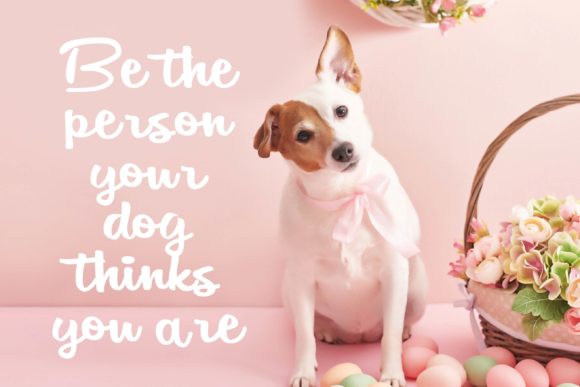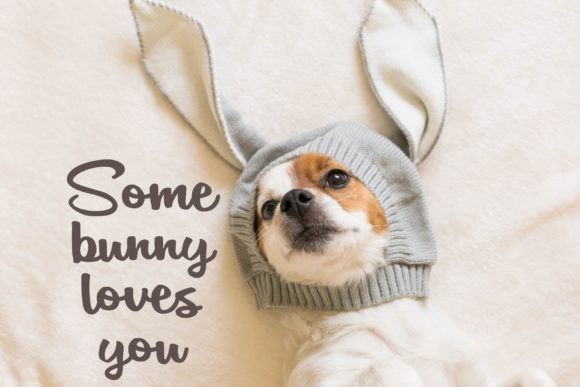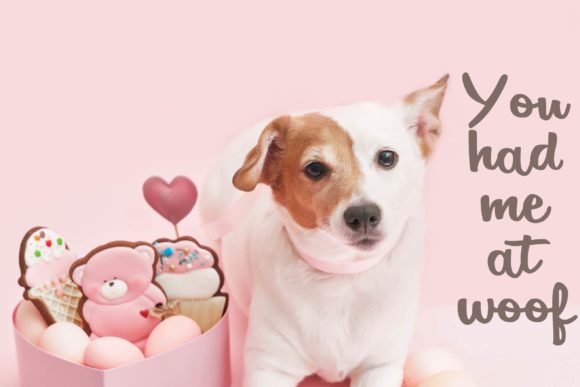
Introduction to Jackrabbit Font
As a designer, you know the thrill of creating something from scratch – the blank canvas, the spark of an idea, and the rush of bringing it to life. And sometimes, all it takes is the right font to give your project that extra oomph. That’s where the Jackrabbit Font comes in – a hand-crafted typeface that’s as fresh as a spring morning and as friendly as a smile.
As a valuable addition to any designer’s toolkit, the Jackrabbit Font is a high-quality resource that’s sure to elevate your work to the next level. So why settle for a generic font when you can add a dash of whimsy and personality to your designs with the Jackrabbit Font?
Key Features of Jackrabbit Font
- High-quality, professional font suitable for various creative projects, including logos, branding, and digital designs.
- Designed with a unique, modern aesthetic, making it an excellent addition to any design resource collection.
Honest Review: Jackrabbit Font
As a designer, I’m always on the lookout for high-quality design resources to elevate my creative projects. Recently, I had the chance to work with the Jackrabbit Font, and I’m excited to share my honest review.
One of the standout features of the Jackrabbit Font is its high-quality design. The font is incredibly crisp and clear, making it perfect for a variety of applications, from logos to digital products. ✨
However, I did notice a few limitations. The font family is relatively small, and it doesn’t come with as many variations as some other fonts. ⚠️
Overall, I’m really impressed with the Jackrabbit Font. It’s a solid design resource that’s perfect for designers working on creative projects. If you’re looking for a high-quality font with a transparent background, I’d definitely recommend giving it a try.
- Perfect for logos, digital products, and more
- Small font family
- Not as many variations as other fonts
Tips for Getting the Most Out of Jackrabbit Font
Experiment with different font sizes and styles to find the perfect look for your design. Combine the Jackrabbit Font with other design elements to create a unique and eye-catching visual effect.
Common Use Cases for Jackrabbit Font
The Jackrabbit Font is ideal for use in creative projects such as logos, graphics, and presentations. Its transparent background and high-quality design make it a versatile and useful design resource for designers and non-designers alike.